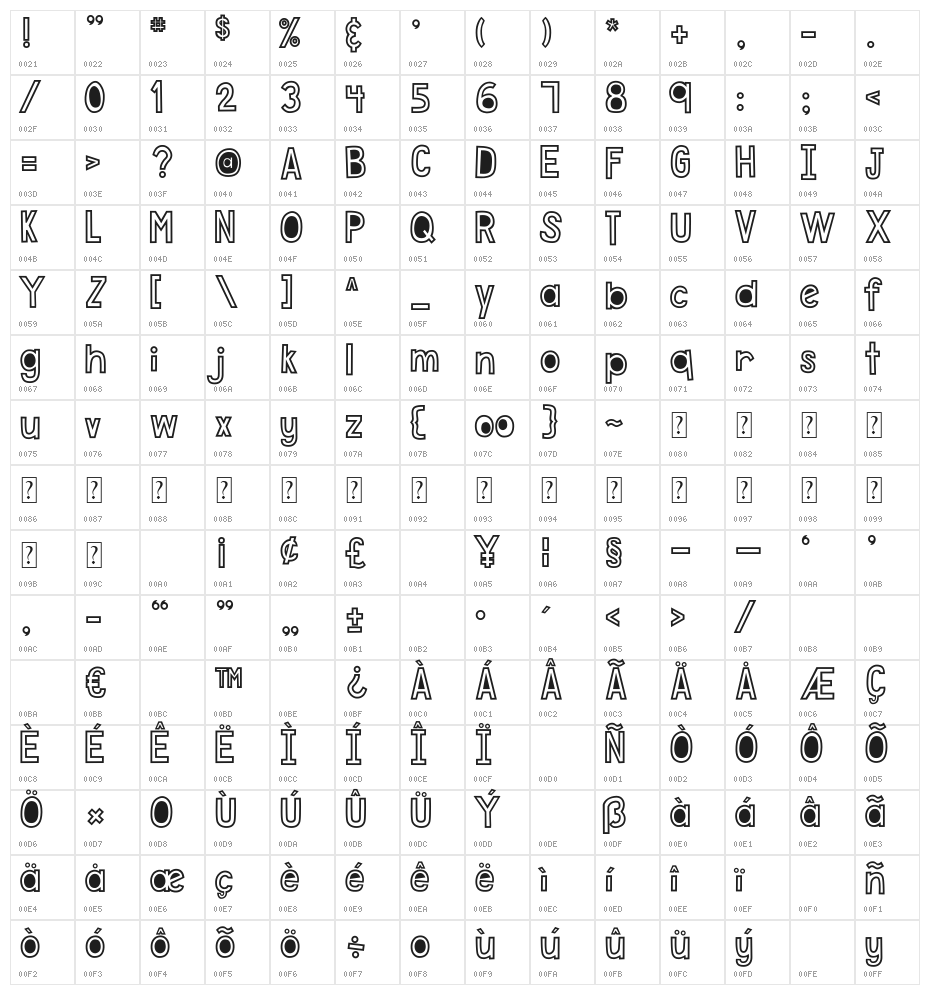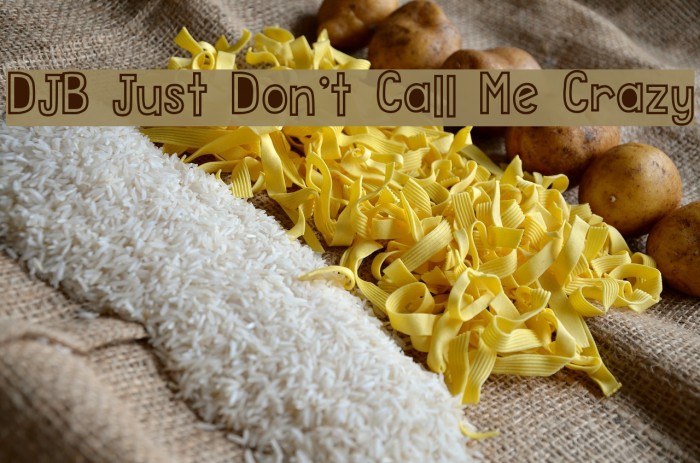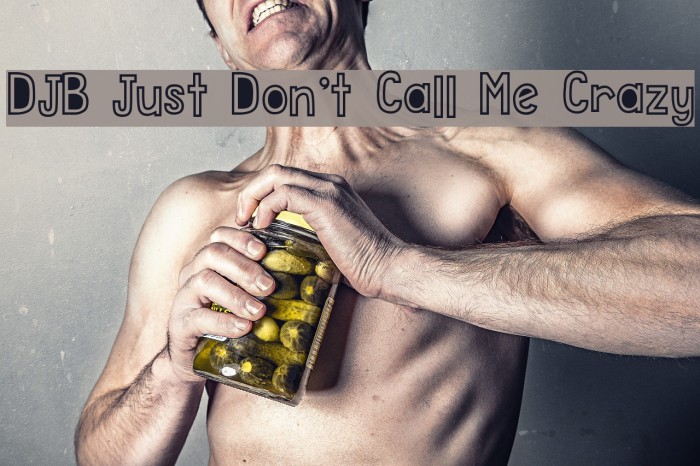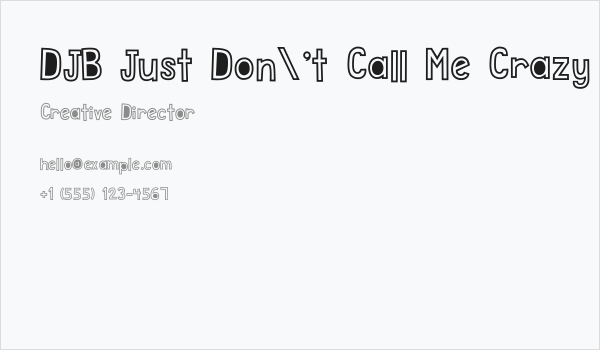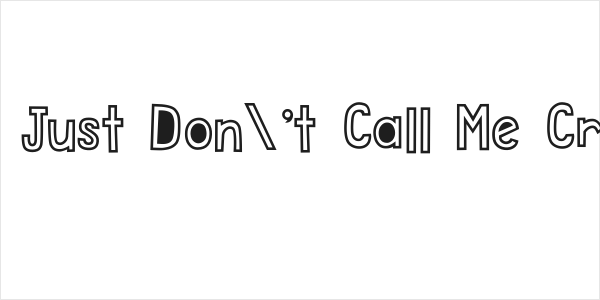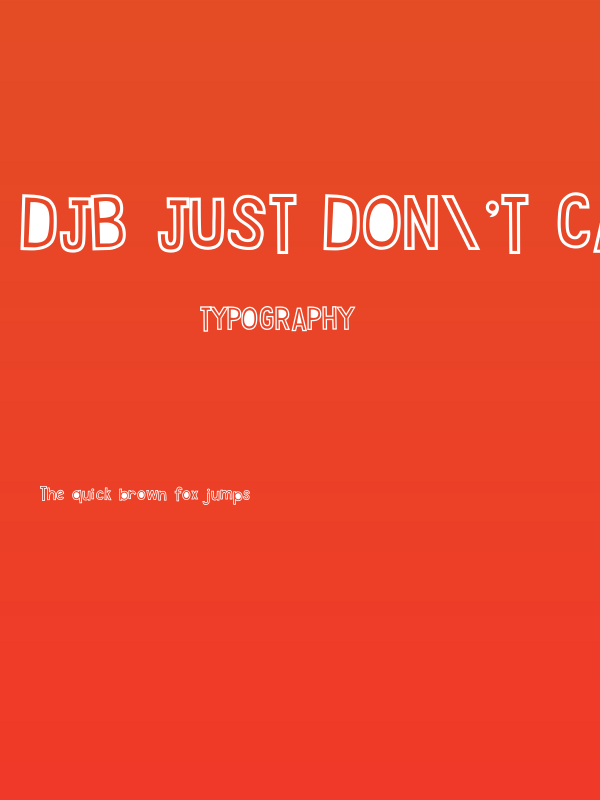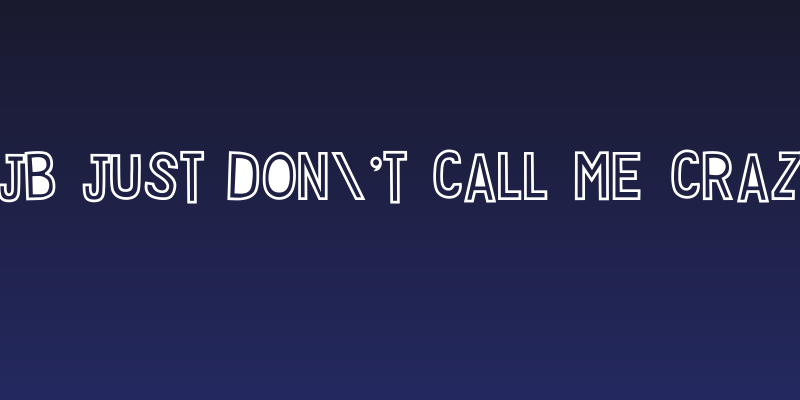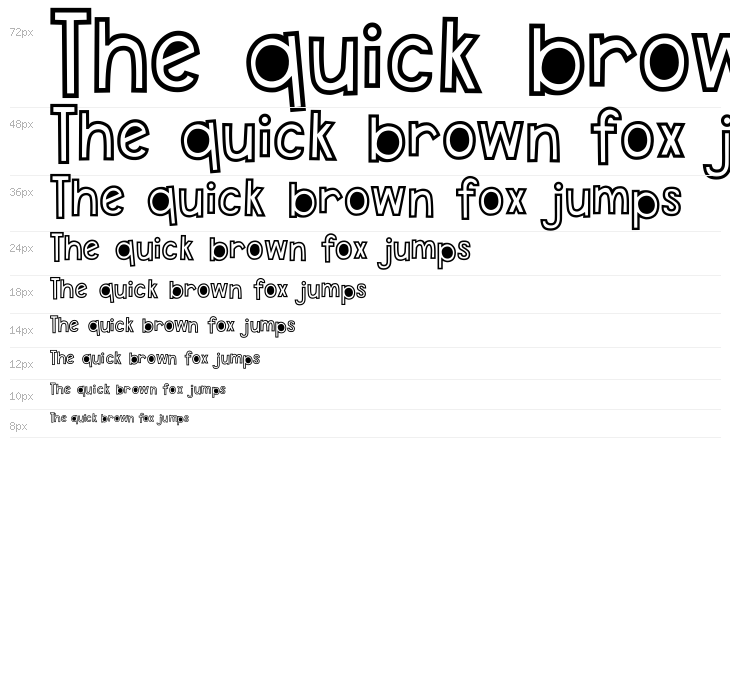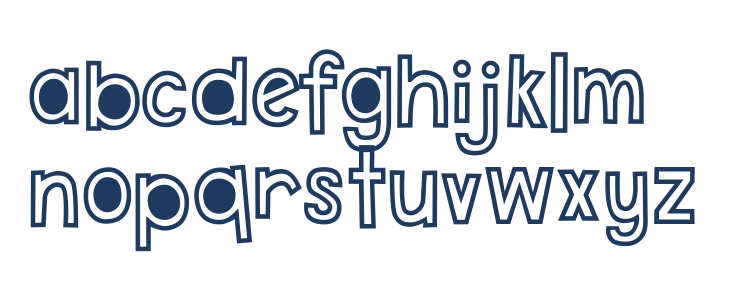
DJB Just Don't Call Me Crazy Font
DJB Just Don't Call Me Crazy Description
This playful and bold font features a unique outline style that gives it a distinctive, eye-catching appearance. The uppercase and lowercase letters maintain a consistent width, creating a harmonious balance across the alphabet. The numbers and special characters follow the same design principles, ensuring uniformity. The font's rounded edges and open counters contribute to its friendly and approachable feel, making it suitable for a variety of creative projects. Its bold presence is ideal for making statements, while the outlined design adds a touch of whimsy and fun.
| Proposed Projects | Ideal for children's books, playful branding, posters, and creative invitations. |